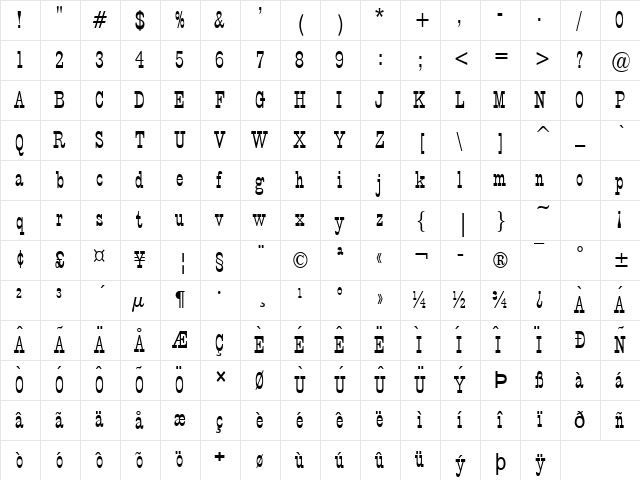
Complete Circus Thin Normal glyph index. Displaying only characters natively supported by Circus Thin Normal font.
Circus Thin is a composed and adaptable typeface that performs quietly and consistently across a wide range of design contexts. Its slender proportions lend an understated elegance to any composition.